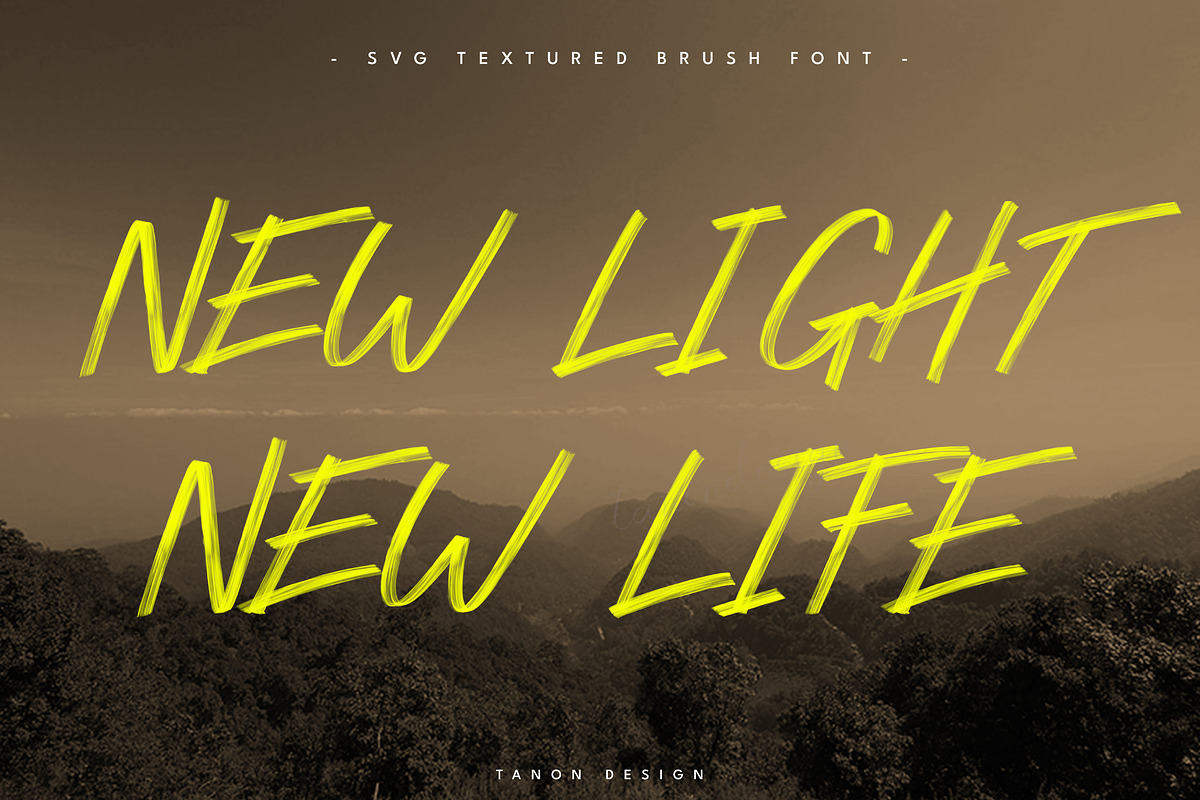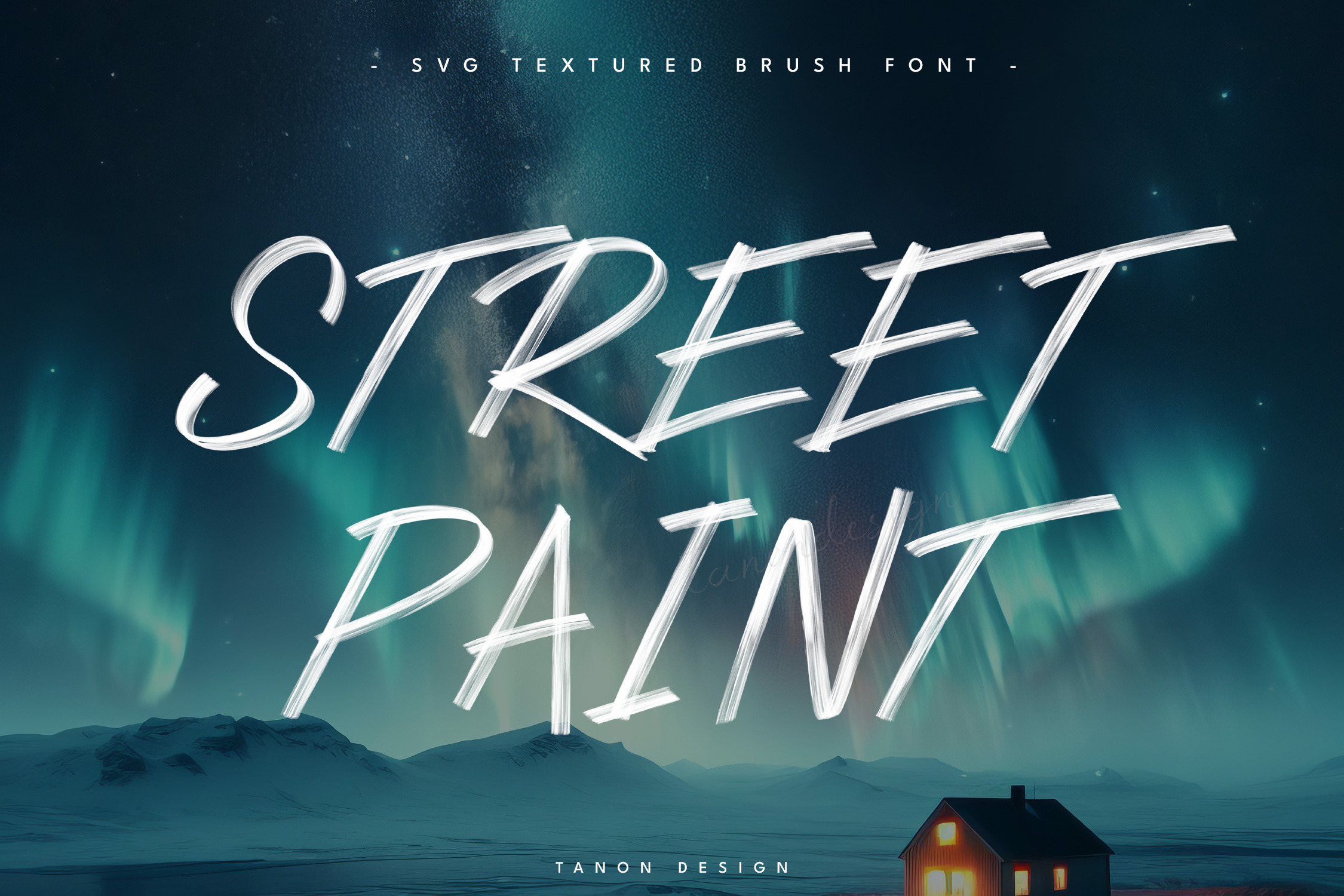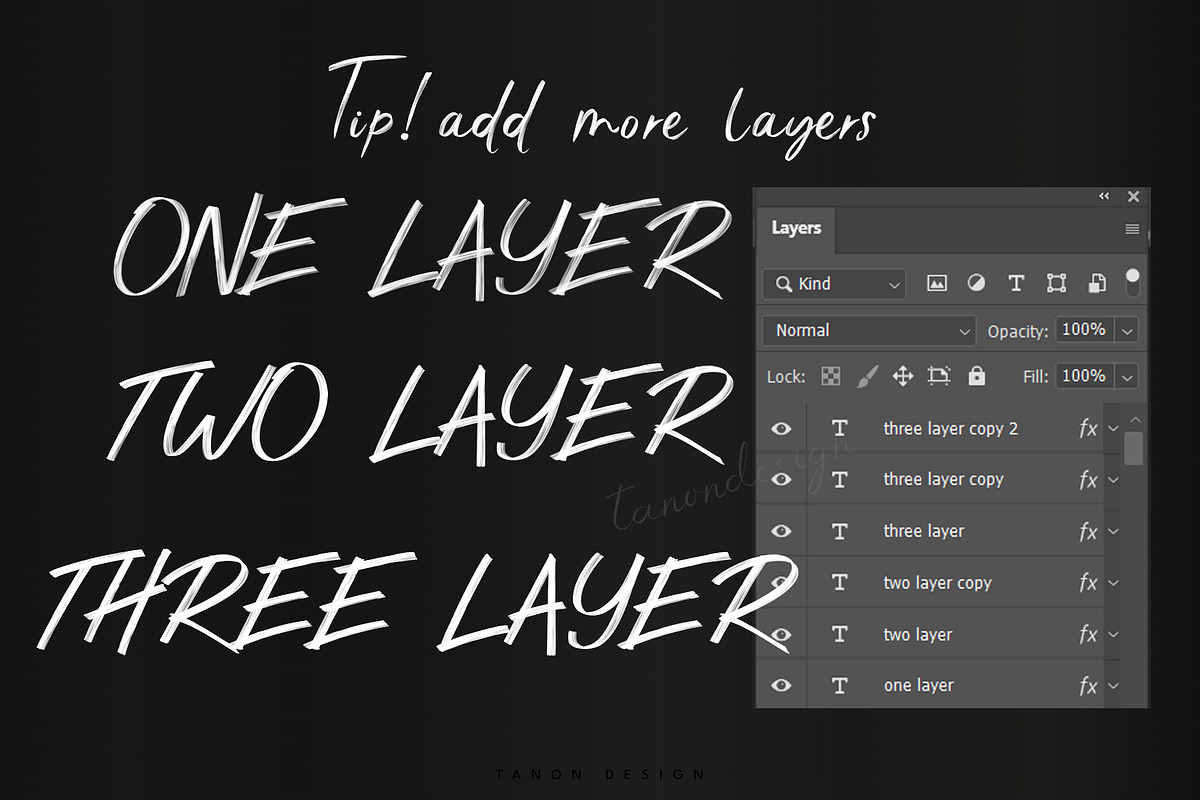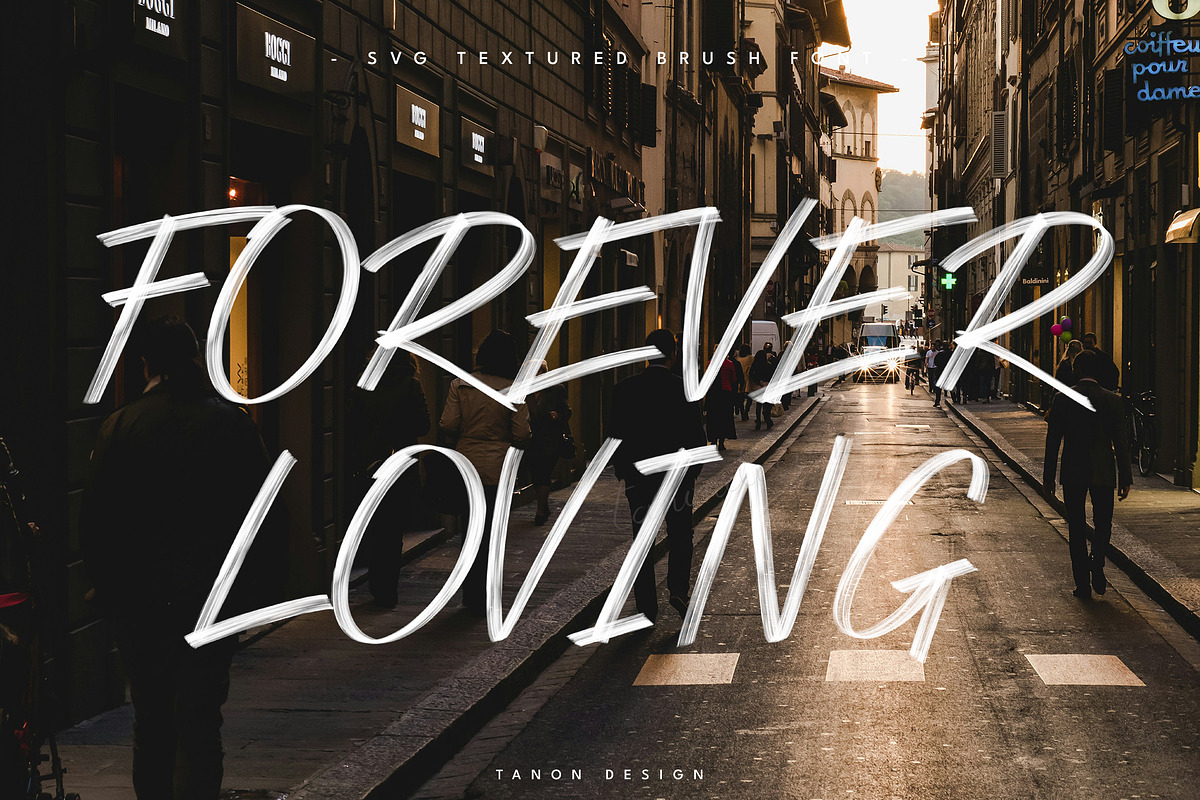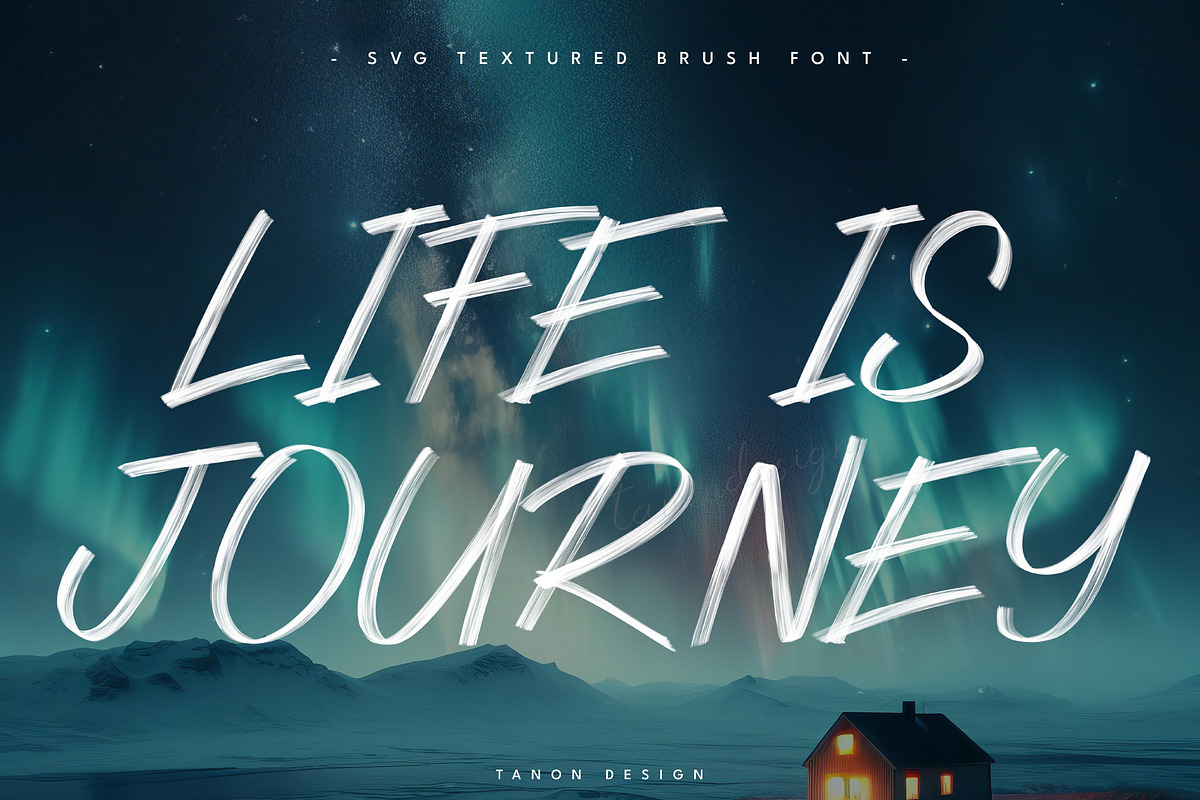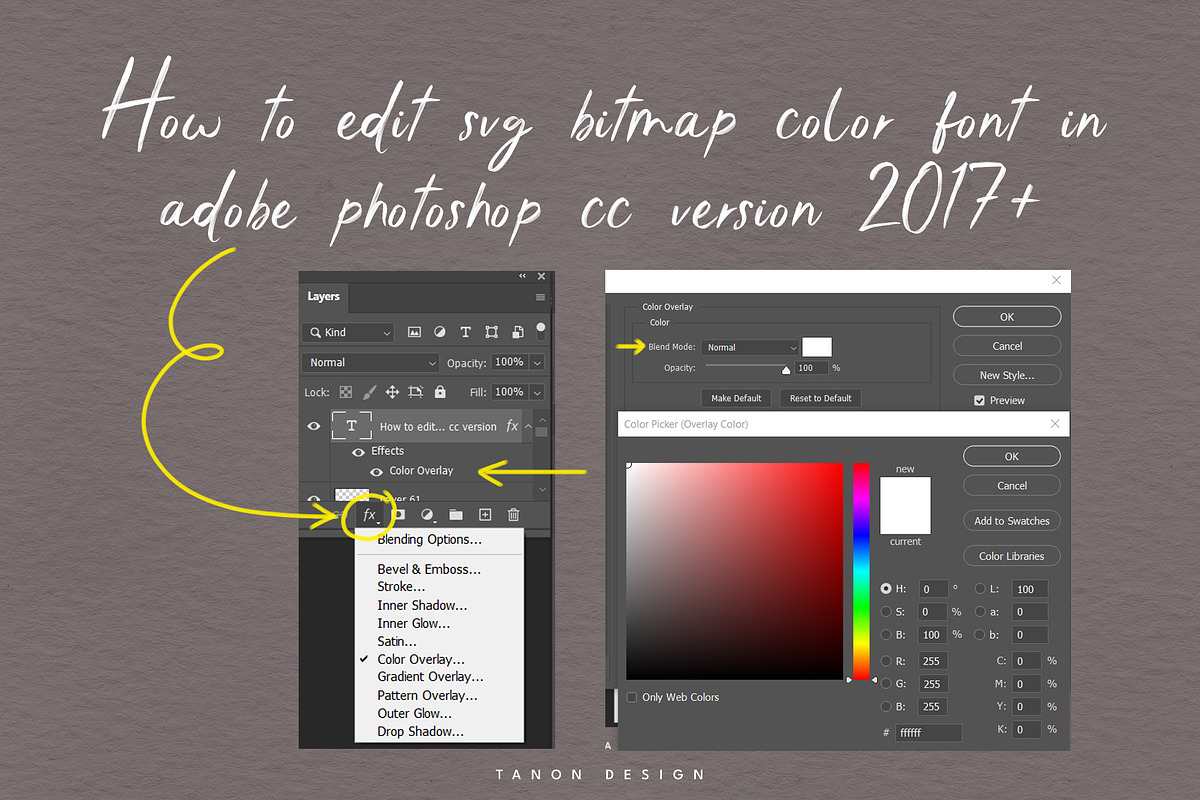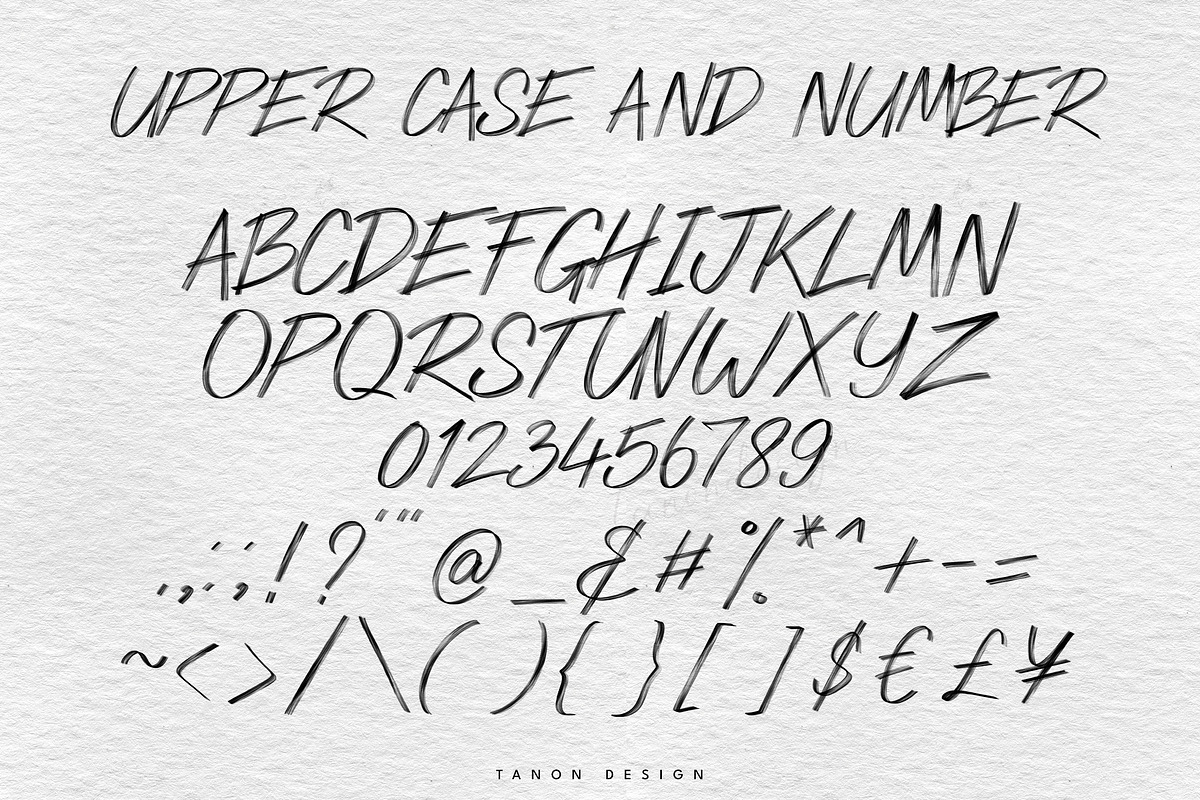
Street Paint SVG Textured Brush font
Introducing “Street Paint” Textured brush SVG font. realistic brush fonts, handwritten brush font. It will look fantastic on all your project designs including t-shirt designs, mug designs, digital designs, crafts, cards, and any projects!